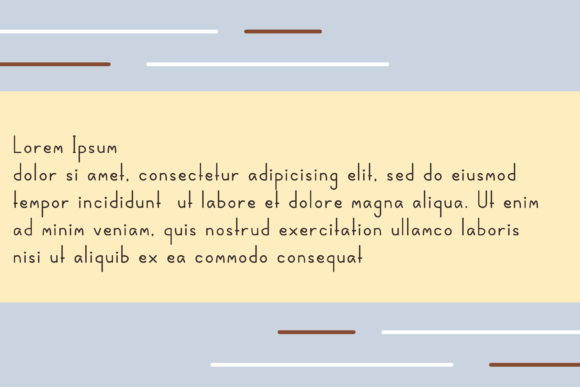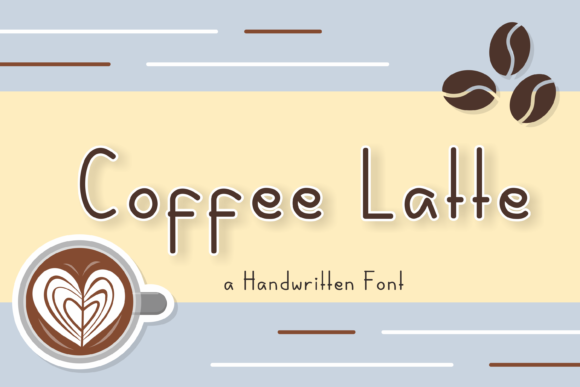
Coffee Latte Font: A Deliciously Cute Handwritten Font to Elevate Your Crafting Projects
Are you feeling like having a coffee? Then, this is the perfect choice! Get inspired by the Coffee Latte Font, a cute handwritten font that can take your crafting projects to the next level! As a designer or crafter, you’re always on the lookout for fresh and unique typography to make your creations stand out. In this article, we’ll dive into the world of Coffee Latte Font, exploring its features, benefits, and uses, as well as provide you with valuable insights on how to make the most of this delightful font.
What is Coffee Latte Font?
Coffee Latte Font is a charming handwritten font designed to evoke the warmth and coziness of a perfectly crafted cup of coffee. Its soft, rounded edges and gentle curves make it an instant favorite among designers and crafters. This font is perfect for a wide range of projects, from invitations and greeting cards to social media graphics and blog posts.
Key Features of Coffee Latte Font
- Handwritten style: Coffee Latte Font boasts a beautiful, handwritten style that’s perfect for adding a personal touch to your projects.
- Cute and playful: This font is designed to be fun and playful, making it ideal for projects that require a touch of whimsy.
- Easy to read: Despite its decorative nature, Coffee Latte Font remains highly legible, ensuring that your message is conveyed clearly.
- Versatile: Use Coffee Latte Font for a variety of projects, from digital graphics to print materials.
Benefits of Using Coffee Latte Font
So, why choose Coffee Latte Font for your next project? Here are just a few benefits you can expect:
- Adds a personal touch: Coffee Latte Font’s handwritten style adds a warm, personal touch to your projects, making them more relatable and engaging.
- Sets the tone: This font’s playful, carefree vibe is perfect for setting a lighthearted tone for your project.
- Enhances creativity: Coffee Latte Font’s unique style can inspire creativity and help you think outside the box.
Using Coffee Latte Font in Your Projects
Now that you’re excited about Coffee Latte Font, let’s explore some ideas for using it in your projects:
- Invitations and greeting cards: Add a touch of elegance and whimsy to your invitations and greeting cards with Coffee Latte Font.
- Social media graphics: Use Coffee Latte Font to create eye-catching social media graphics that showcase your brand’s personality.
- Blog posts and articles: Add a dash of personality to your blog posts and articles with Coffee Latte Font.
- Crafting projects: From scrapbooking to papercraft, Coffee Latte Font is the perfect addition to your crafting projects.
Tips and Tricks for Working with Coffee Latte Font
To get the most out of Coffee Latte Font, here are some valuable tips and tricks:
- Pair with complementary fonts: Combine Coffee Latte Font with clean, modern fonts to create visual interest.
- Experiment with colors: Play with different color schemes to find the perfect match for your project.
- Use it sparingly: Balance Coffee Latte Font with other design elements to avoid overwhelming your project.
In conclusion, Coffee Latte Font is a delightful handwritten font that’s sure to elevate your crafting projects. Its cute, playful style and versatility make it an excellent choice for designers and crafters. Whether you’re creating invitations, social media graphics, or crafting projects, Coffee Latte Font is the perfect addition to your typography arsenal. So, go ahead and indulge in a virtual cup of coffee, and let Coffee Latte Font inspire your next creative project!